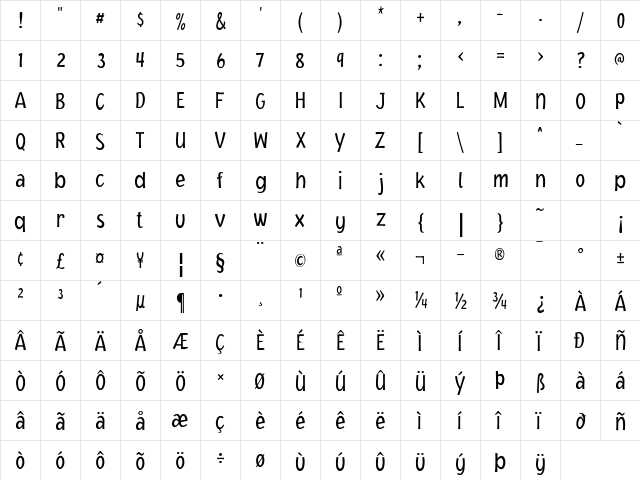
JacobyCondICG Light Font Preview
JacobyCondICG Light
JacobyCondICG Light Font Details
Design Context for JacobyCondICG Typeface
JacobyCondICG is a composed and adaptable typeface that performs quietly and consistently across a wide range of design contexts. The delicate stroke weight brings airiness and refinement to layouts. The condensed width makes it efficient for tight spaces without sacrificing legibility.